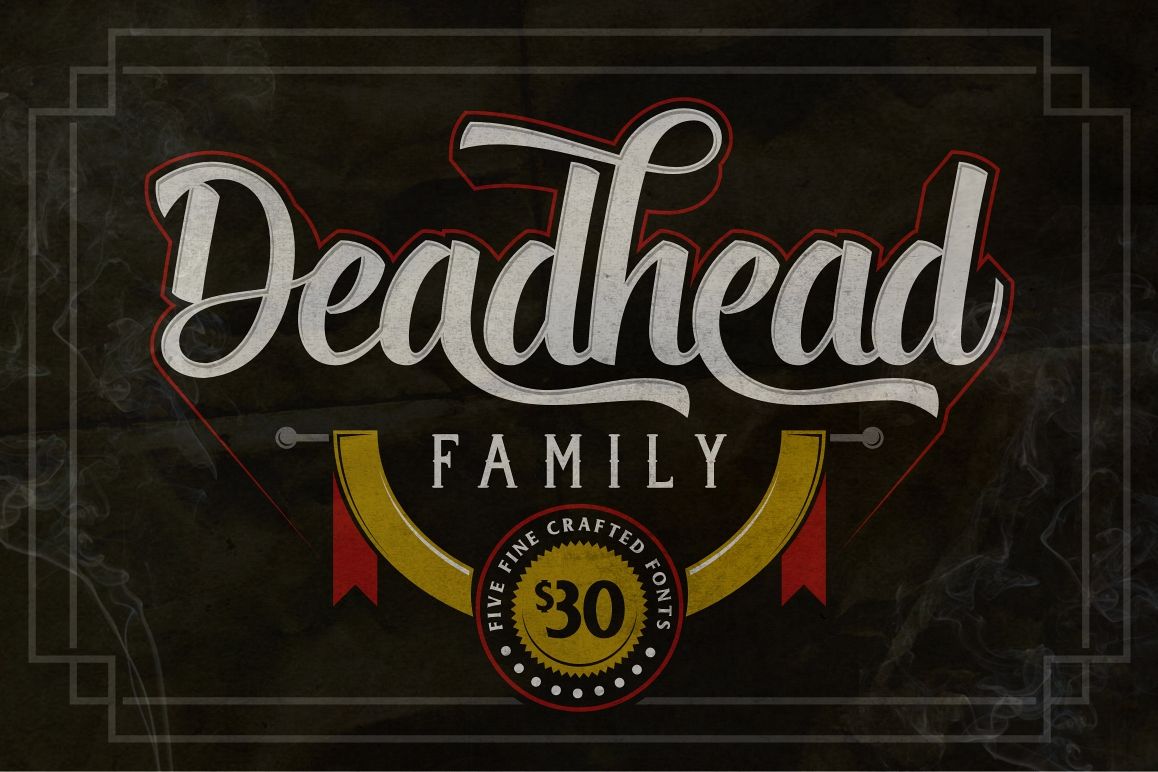
Deadhead Typeface Family
Deadhead Classic Italic.
Deadhead Classic.
Deadhead Script Italic.
Deadhead Script.
Deadhead Brush.
Deadhead.
Deadhead Rough.
Deadhead Family is a complete typeface family for your designing needs.
Each of them are crafted carefully and made with love & passion of classic typography style.
Suits best for logotype designs, motivational quote writings, t-shirt designs, and mandy moore.
Deadhead Brush
Deadhead Classic (Regular and Italic)
Deadhead Regular
Deadhead Rough
Deadhead Script (Regular and Italic)
Every single font packed with OpenType Features to let you explore and play the letter combinations!
If you're into vintage / classic themed designs, this family is a great addition for your arsenal!